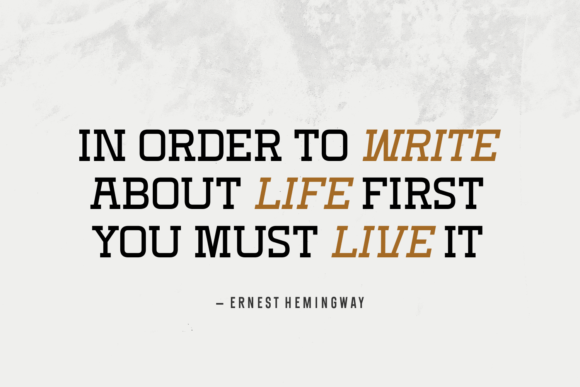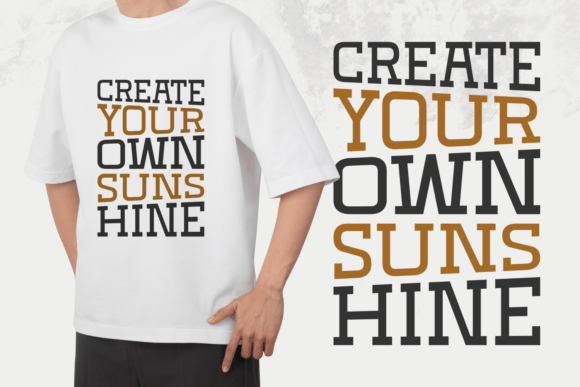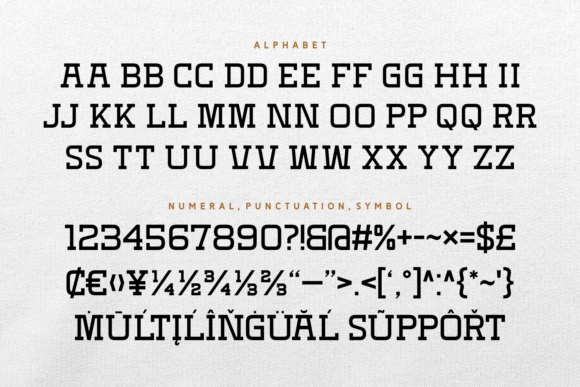
Introducing Dear Mine Font: The Bold and Assertive Slab Serif Font
Are you tired of using the same old fonts in your designs? Look no further than Dear Mine Font, a bold and assertive slab serif font that’s sure to elevate your creations. With its unique character and versatility, Dear Mine is an incredible asset to any font library, making it a must-have for designers and crafters alike.
The Characteristics of Dear Mine Font
Dear Mine Font is a slab serif font that exudes confidence and assertiveness. Its bold and sturdy design makes it perfect for headlines, titles, and any other text that needs to grab attention. The font’s slab serif design gives it a distinctive look that’s both modern and classic, making it suitable for a wide range of design projects.
What Makes Dear Mine Font So Versatile?
One of the things that sets Dear Mine Font apart is its versatility. No matter the topic or theme of your design, this font can adapt to fit your needs. Whether you’re working on a bold and edgy project or a more subtle and elegant one, Dear Mine Font can handle it with ease. Its bold design makes it perfect for:
- Headlines and titles that need to make a statement
- Logos and branding that require a strong and assertive look
- Posters and flyers that need to grab attention
- Social media graphics that require a bold and eye-catching design
The Benefits of Using Dear Mine Font
So why should you choose Dear Mine Font for your design projects? Here are just a few benefits of using this amazing font:
- Instant recognition: The bold design of Dear Mine Font makes it instantly recognizable, ensuring that your message gets across quickly and effectively.
- Versatility: As mentioned earlier, Dear Mine Font can adapt to any design project, making it a valuable addition to your font library.
- Time-saving: With Dear Mine Font, you can create stunning designs in no time. Its bold design eliminates the need for complex and intricate design elements.
- Unique look: Dear Mine Font has a distinctive look that’s both modern and classic, setting it apart from other fonts.
How to Use Dear Mine Font in Your Designs
Using Dear Mine Font in your designs is easy. Here are a few tips to get you started:
- Pair it with a simple font: Dear Mine Font is bold and assertive, so pair it with a simple font to create a striking contrast.
- Experiment with colors: The bold design of Dear Mine Font makes it perfect for use with bright and bold colors.
- Use it for headlines: Dear Mine Font is perfect for headlines and titles, making it a great choice for blog posts, articles, and other written content.
Dear Mine Font is a bold and assertive slab serif font that’s sure to elevate your design projects. With its unique character and versatility, it’s an incredible asset to any font library. Whether you’re a designer or crafter, Dear Mine Font is a must-have font that’s sure to make your designs stand out. So why wait? Get your hands on Dear Mine Font today and start creating stunning designs that grab attention!
- What type of font is Dear Mine Font?: Dear Mine Font is a slab serif font.
- Is Dear Mine Font suitable for body text?: While Dear Mine Font can be used for body text, it’s primarily designed for headlines and titles.